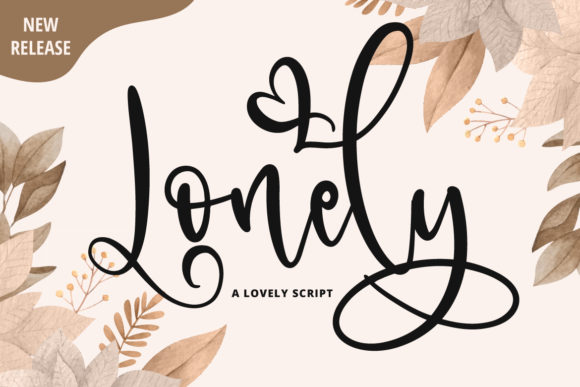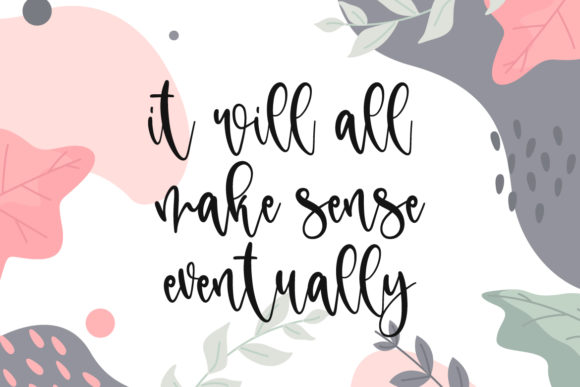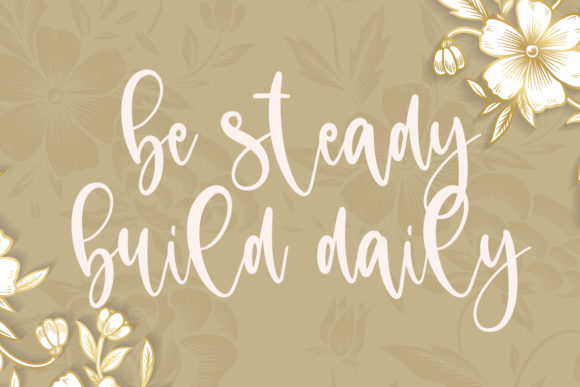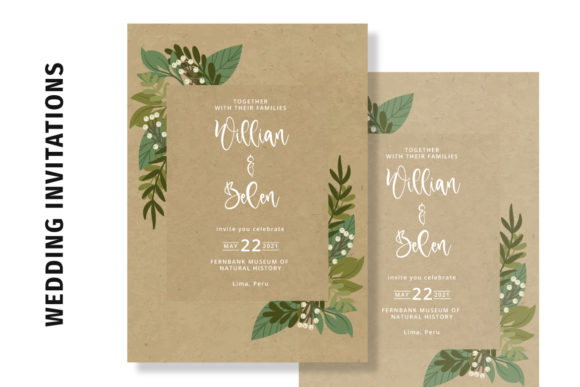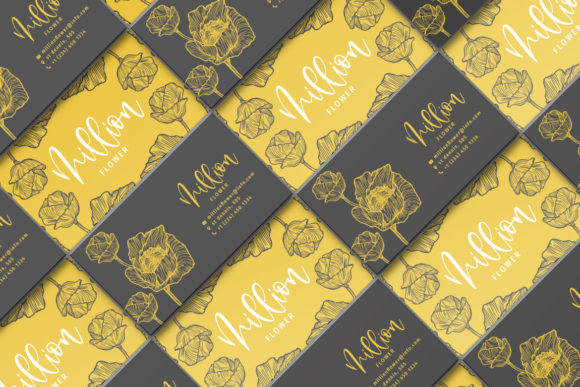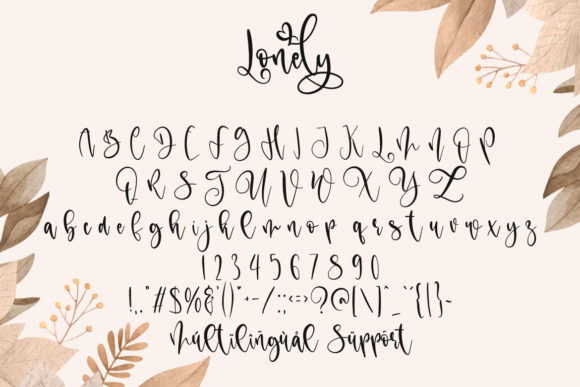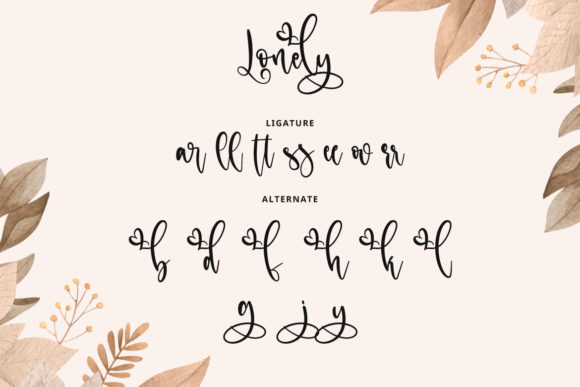
Lonely Font
Lonely is a refined and fashionable script font. This font is neatly crafted and highly detailed. Whatever the topic, Lonely will be a wonderful asset to your font library, as it has the potential to enhance any creation.